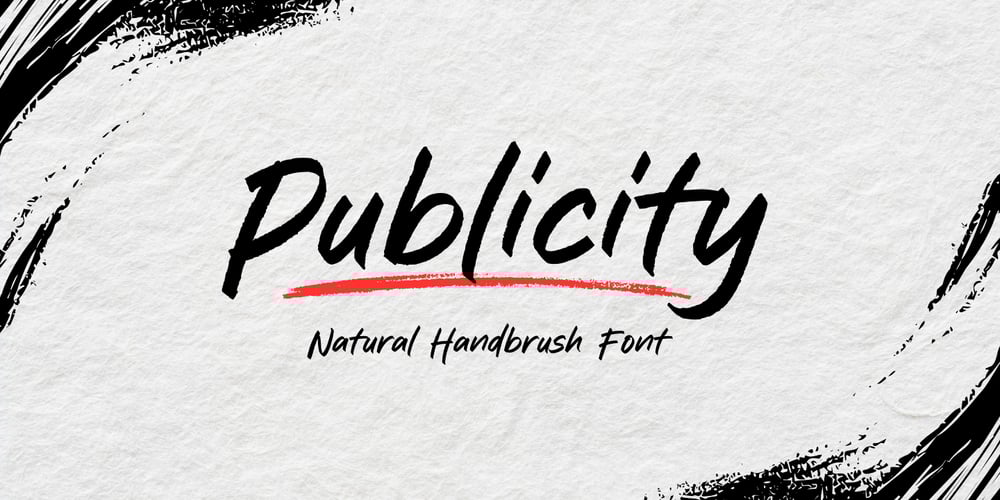
Publicity Brush
Publicity Brush font
Publicity Brush Font Family was designed by Muhamad Yusron Billah and published by Sronstudio. Publicity Brush contains 1 styles and family package options. Publicity Brush is a dynamic handbrush font with bold, textured strokes that exude energy and creativity. Perfect for eye-catching posters, branding, and headlines, it adds a raw, artistic touch to any design. Make a bold statement with Publicity Brush!Included:- Upper & Lowercase- Numeral & Punctuation- PUA Encoded- Multilingual support- Simple Installation- Work both on Mac and WindowsThank you very much ๐Ÿ™‚